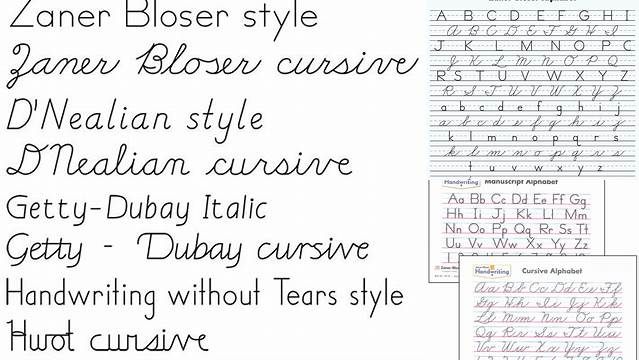
Free Zaner-Bloser Cursive Font: Download Guide
Hey guys! Ever wondered about that elegant, flowing handwriting style you often see in old documents or educational materials? Chances are, you've stumbled upon the Zaner-Bloser cursive font. In this comprehensive guide, we're going to dive deep into the world of Zaner-Bloser cursive font free, exploring its history, characteristics, and where you can find it for your own projects. Zaner-Bloser isn't just any font; it's a cornerstone of cursive handwriting education in the United States, a method that has shaped the penmanship of generations. Understanding its nuances and accessibility is key for educators, designers, and anyone fascinated by the art of handwriting. So, let's embark on this journey to uncover the secrets and free resources associated with this iconic script.
The Zaner-Bloser method is more than just a font; it's a structured approach to teaching handwriting that emphasizes simplicity and legibility. Developed in the late 19th and early 20th centuries, it quickly became a standard in American classrooms, prized for its clear letterforms and consistent strokes. This system focuses on rhythmic, oval-based letter shapes, making it easier for students to learn and maintain a fluid writing style. The beauty of Zaner-Bloser lies in its balance – it's both aesthetically pleasing and highly practical. It avoids excessive flourishes or overly complex letterforms, ensuring that the writing remains readable and efficient. This emphasis on clarity has made it a favorite for educational materials, legal documents, and personal correspondence alike. As we explore the availability of free Zaner-Bloser cursive fonts, it's crucial to remember that we're not just looking at a typeface; we're engaging with a piece of educational history and a time-tested method of handwriting instruction. The digital versions of this font seek to replicate the same elegance and clarity that made the original method so successful, offering a valuable tool for both learning and design.
Finding a Zaner-Bloser cursive font free can be a treasure trove for a variety of users. Educators might use it to create worksheets and learning materials that align with traditional handwriting instruction. Graphic designers might incorporate it into projects that require a touch of classic elegance or a vintage feel. And individuals who simply appreciate the beauty of cursive writing can use it for personal correspondence or creative endeavors. The accessibility of this font opens up a world of possibilities, allowing users to connect with a historical style of writing in a modern context. However, it's essential to be mindful of licensing when downloading and using fonts, even those that are offered for free. Some fonts may have restrictions on commercial use, while others may require attribution. We'll delve into these considerations later in the guide, ensuring that you can use your Zaner-Bloser cursive font free legally and ethically. The goal is to empower you with the knowledge and resources to fully appreciate and utilize this beautiful font in your projects, whether they're educational, professional, or purely for personal enjoyment.
To truly appreciate the Zaner-Bloser cursive font, we need to take a trip back in time and explore its fascinating history and evolution. This cursive style wasn't born overnight; it's the result of decades of refinement and a dedication to making handwriting accessible to all. The story begins in the late 19th century with Charles Paxton Zaner and Elmer Ward Bloser, two pioneers in penmanship education. These guys weren't just teachers; they were visionaries who believed that good handwriting was a fundamental skill, crucial for both personal and professional success. Their partnership led to the creation of the Zanerian College of Penmanship in 1888, a hub for training handwriting instructors and developing a standardized method of cursive writing.
The Zaner-Bloser method was a departure from the more ornate and elaborate cursive styles that were popular at the time. Zaner and Bloser focused on simplicity and legibility, creating letterforms that were easy to learn and write quickly. Their system emphasized rhythmic strokes and oval-based letter shapes, making the writing flow smoothly across the page. This approach was a game-changer in penmanship education, as it made cursive writing more accessible to a wider range of students. The Zaner-Bloser method quickly gained popularity, and their instructional materials became widely used in schools across the United States. The impact of Zaner and Bloser's work is still felt today, as their method continues to influence handwriting instruction and font design. As we explore the availability of Zaner-Bloser cursive font free, it's important to recognize that we're engaging with a legacy of educational innovation and a commitment to the art of handwriting.
The evolution of the Zaner-Bloser cursive didn't stop with its initial development. Over the years, the method has been adapted and revised to meet the changing needs of education and technology. In the mid-20th century, as typewriters and later computers became more prevalent, the emphasis on handwriting in schools began to decline. However, the Zaner-Bloser method remained a respected and influential approach to cursive instruction. With the resurgence of interest in handwriting and the digital age, the Zaner-Bloser cursive has found new life in the form of digital fonts. These fonts allow users to replicate the classic Zaner-Bloser style on computers and other devices, making it accessible for a variety of applications. Finding a Zaner-Bloser cursive font free is a testament to the enduring appeal and relevance of this handwriting method. It's a way to connect with the past while embracing the future, ensuring that the legacy of Zaner and Bloser continues to inspire and influence penmanship for generations to come. The availability of free digital versions also speaks to the open educational resources movement, allowing educators and individuals to access high-quality learning tools without financial barriers.
Now that we've journeyed through the history, let's zoom in on the key characteristics of the Zaner-Bloser font. What makes it so recognizable and distinct? The Zaner-Bloser cursive isn't just a pretty script; it's a carefully crafted system with specific features designed for both aesthetic appeal and ease of learning. One of the most notable features is its emphasis on oval-shaped letterforms. This consistent shape provides a rhythmic flow to the writing, making it easier to write quickly and legibly. The slant of the letters is also carefully controlled, contributing to the overall uniformity and readability of the script. When you're looking for a Zaner-Bloser cursive font free, understanding these characteristics will help you identify authentic versions and appreciate the thought that went into its design.
Another defining characteristic of the Zaner-Bloser font is its simplicity. Unlike some other cursive styles that incorporate elaborate flourishes and decorative elements, Zaner-Bloser focuses on the essential letterforms. This simplicity makes it easier for students to learn the script and for readers to decipher the writing. The letter connections are also designed to be fluid and natural, allowing the pen to move smoothly across the page. This emphasis on efficiency and legibility is a hallmark of the Zaner-Bloser method. The height and spacing of the letters are also carefully considered, ensuring that the writing is balanced and visually appealing. These details contribute to the overall clarity and elegance of the Zaner-Bloser cursive. When you're evaluating a Zaner-Bloser cursive font free, pay attention to these details to ensure that it accurately reflects the original design principles. A well-crafted Zaner-Bloser font should capture the essence of the handwriting method, providing a tool that is both beautiful and functional.
Beyond the individual letterforms, the Zaner-Bloser method also emphasizes proper posture and pen grip. This holistic approach to handwriting instruction recognizes that the physical act of writing is just as important as the shape of the letters. Students are taught to sit upright, hold the pen correctly, and move their arm and shoulder rather than just their fingers. This technique promotes a more fluid and sustainable writing style, reducing fatigue and improving legibility. While these physical aspects of handwriting can't be replicated in a digital font, they're an important part of the Zaner-Bloser philosophy. When you use a Zaner-Bloser cursive font free, remember that you're engaging with a system that values not only the appearance of the writing but also the process of creating it. The digital font is a representation of a much larger set of principles and practices that have shaped handwriting education for over a century. So, whether you're using it for educational materials, design projects, or personal correspondence, take a moment to appreciate the history and craftsmanship behind this iconic script.